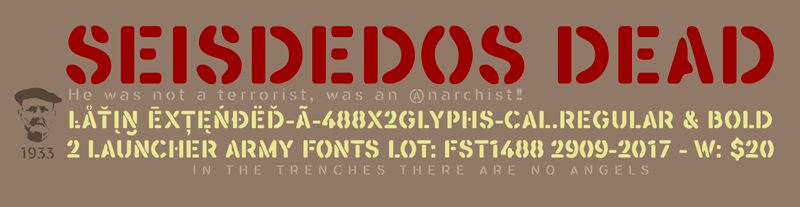
Seisdedos Dead are two font (Regular & Bold) of type stencil eroded by the use. A fun typographic game for the de-construction of the original letters, to print a worn style where the passage of time is appreciated. These typographies are descended from the fonts "Flamante Stencil"
Seisdeos Dead are two font (Regular & Bold) of type stencil eroded by the use. A fun typographic game for the de-construction of the original letters, to print a worn style where the passage of time is appreciated. These typographies are descended from the fonts "Flamante Stencil"